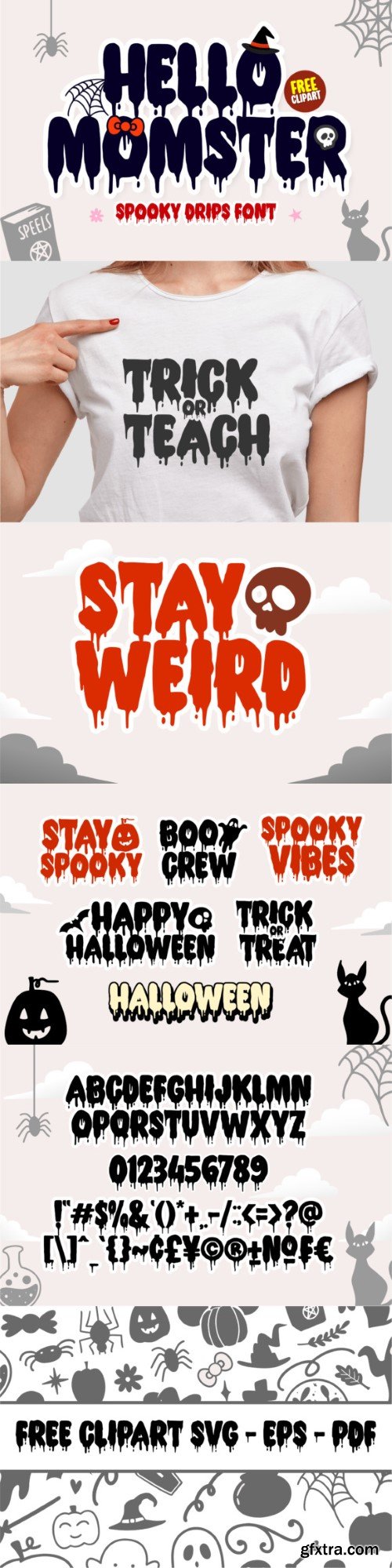
你好妈妈字体
Hello Momster is a bold, scary and wild display font with a spooky look. Dripping style, it will take any Horror or Halloween project to the next level.